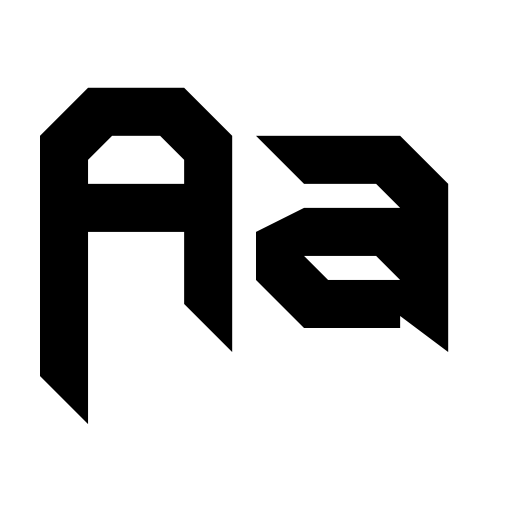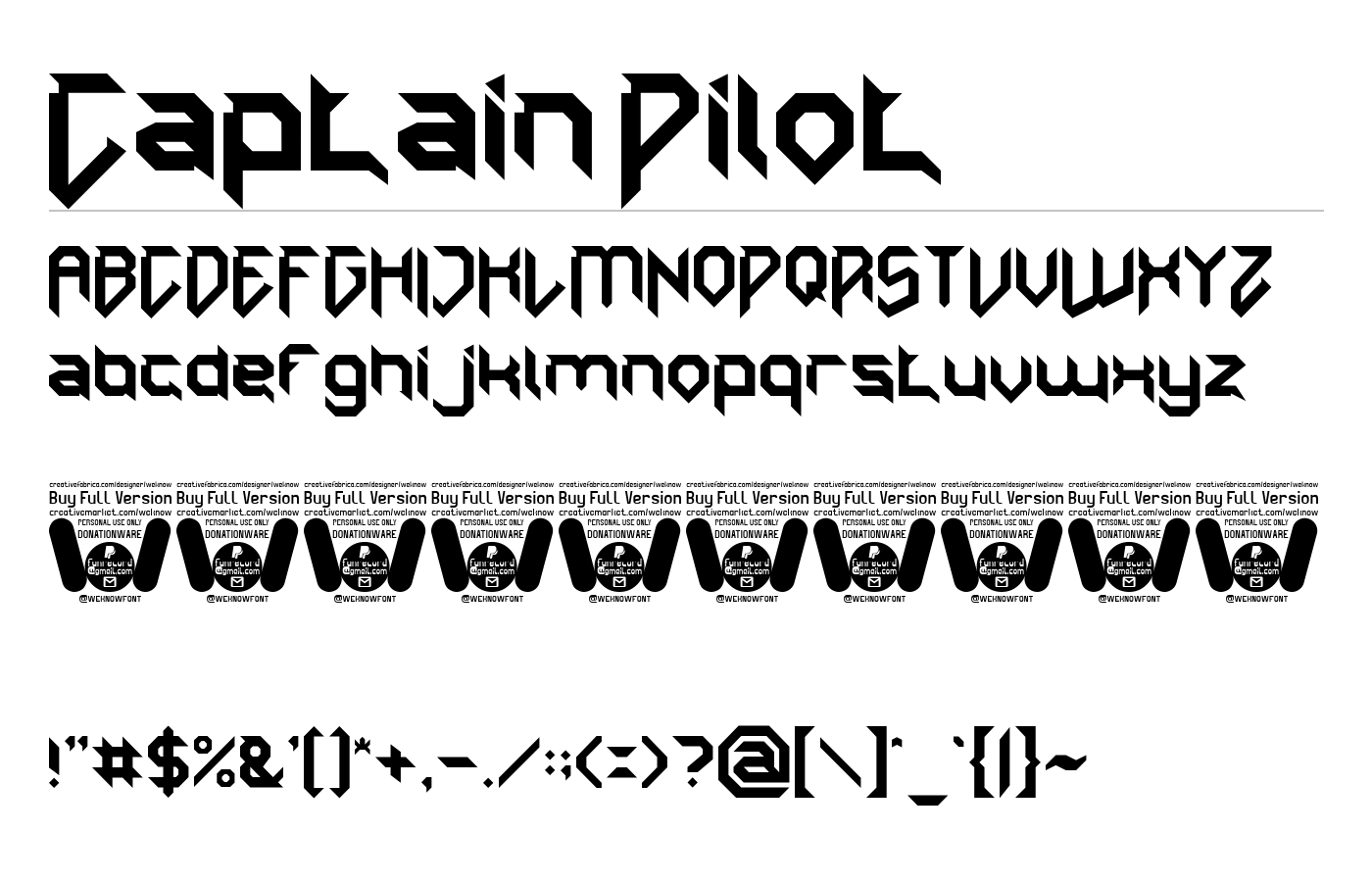
Captain Pilot is a bold, angular sans serif font with a futuristic, geometric design that creates a strong, technical impression. Its sharp edges and unique letterforms give it a distinctive, modern personality, making it ideal for sci-fi inspired branding, posters, and headlines where a striking, innovative look is needed. This font works best in display uses, conveying energy and precision suited for creative and tech-forward projects.
Captain Pilot Font
About Captain Pilot Font